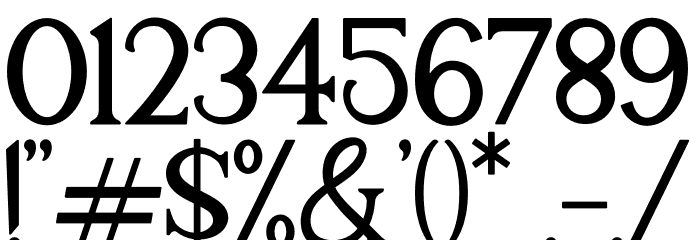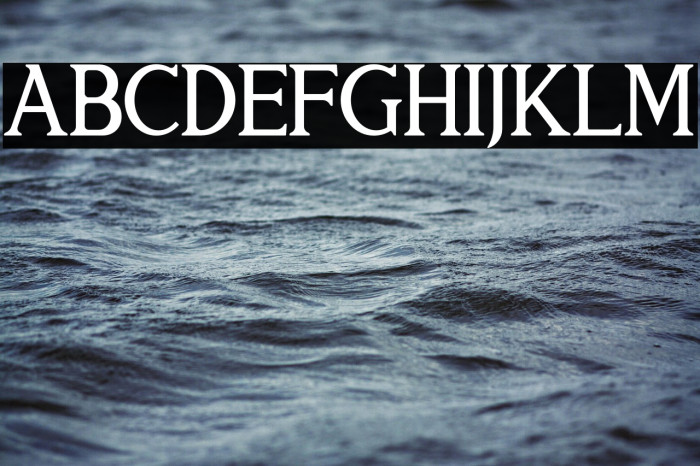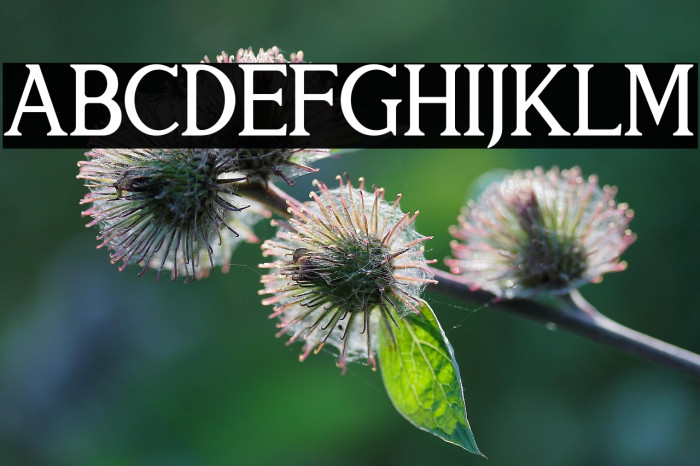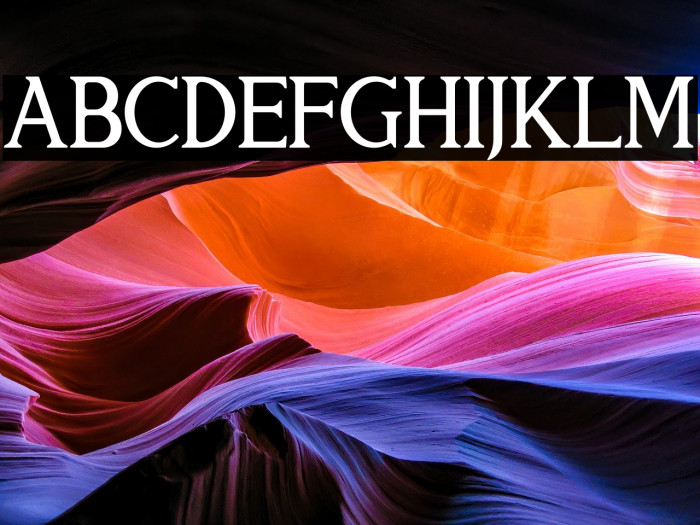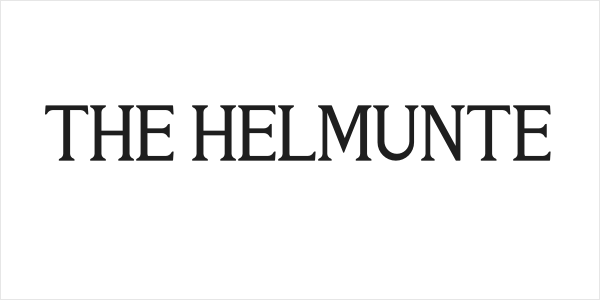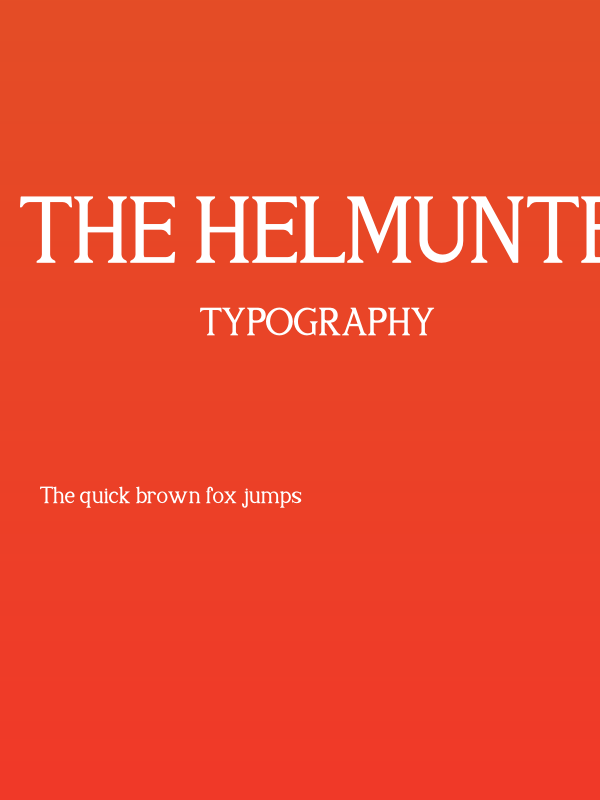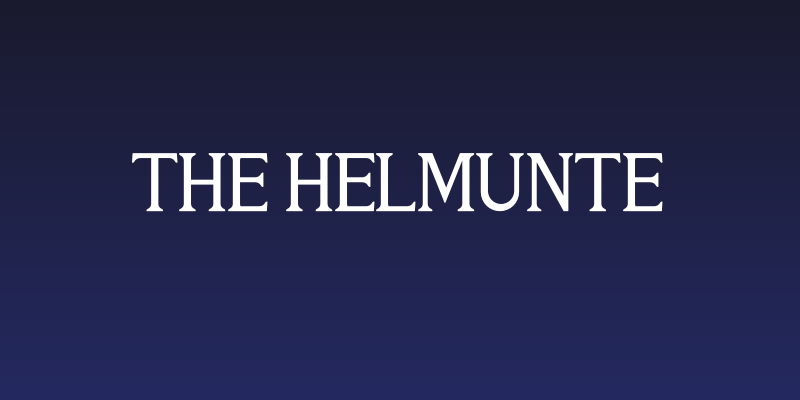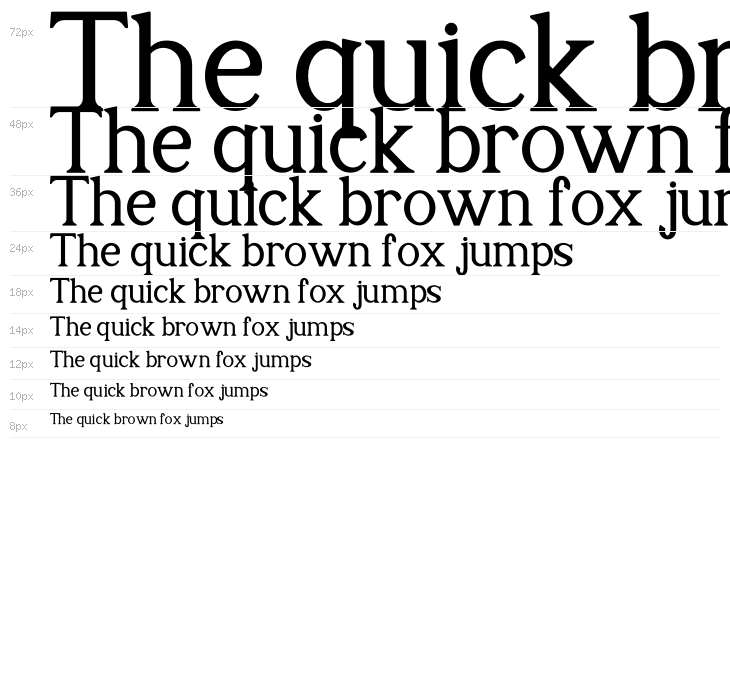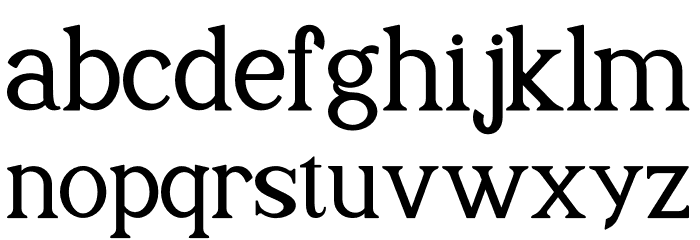
THE HELMUNTE Font
THE HELMUNTE Description
This font features a classic serif style with a strong presence and elegant curves. The uppercase letters are bold and commanding, while the lowercase letters maintain a refined and balanced appearance. The numerals are clear and distinct, making them easily readable. Special characters are well-integrated, maintaining the overall aesthetic. The font's design is versatile, suitable for both traditional and modern applications, offering a timeless appeal.